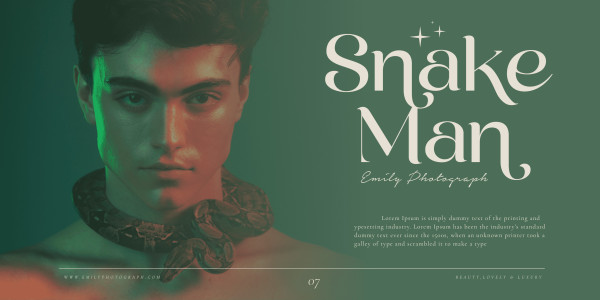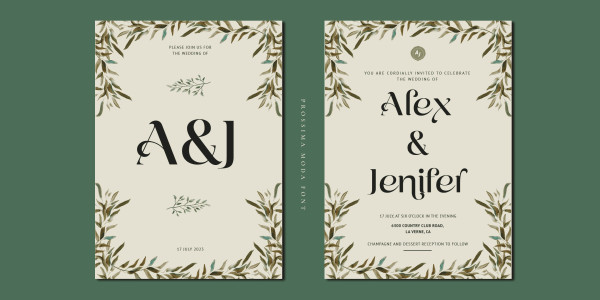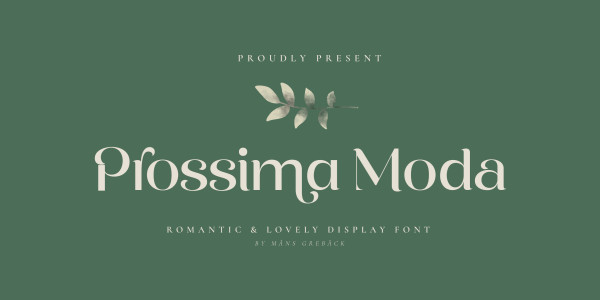
Prossima Moda Font
Prossima Moda Font is a font that radiates modernity and fashion-forward style. Its sleek and contemporary design evokes a sense of sophistication and elegance, while its contrasting lines add a touch of visual interest and intrigue.